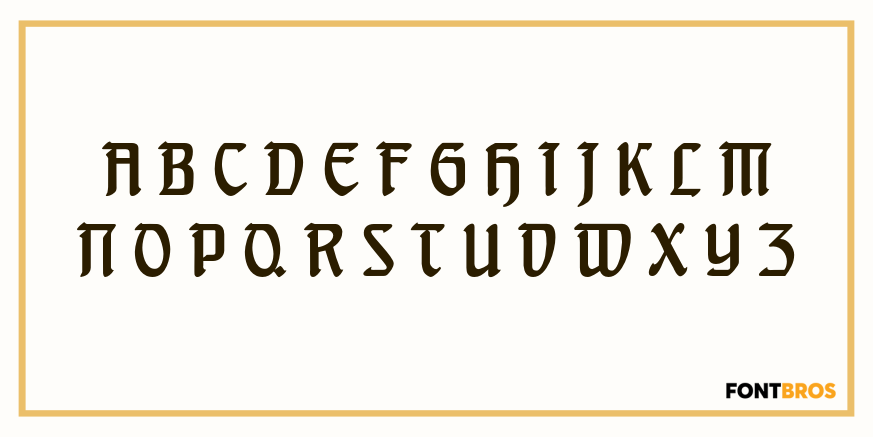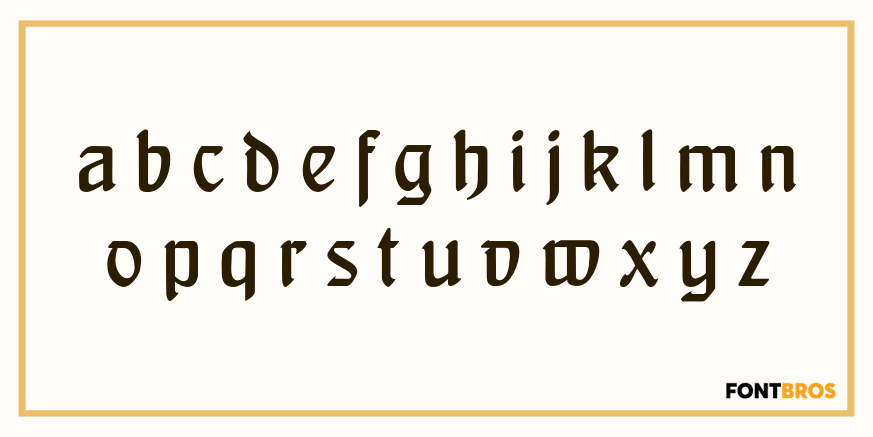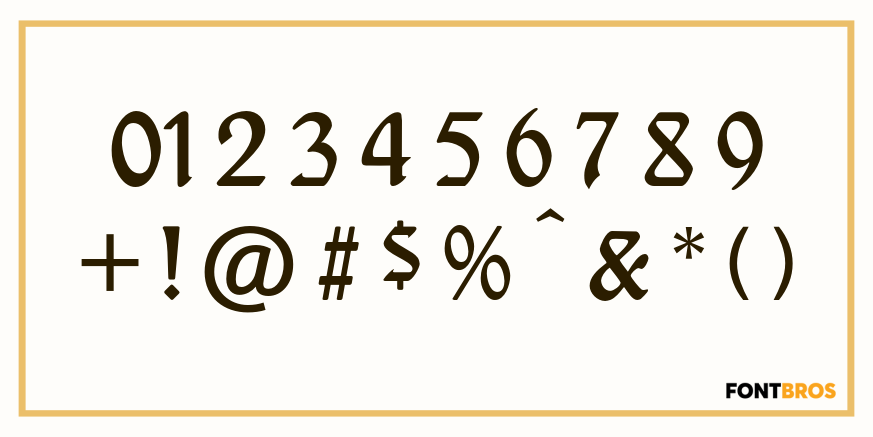
Behrens Schrift
A simplified blackletter designed by Peter Behrens, architect and graphic artist who came into prominence around 1900. Issued by Rudhard's Typefoundry, Offenbach A. M., this face was typical of many in the Jugendstil period.
Its squarish look works well in Craftsman period layouts.
Behrens Schrift by Solotype